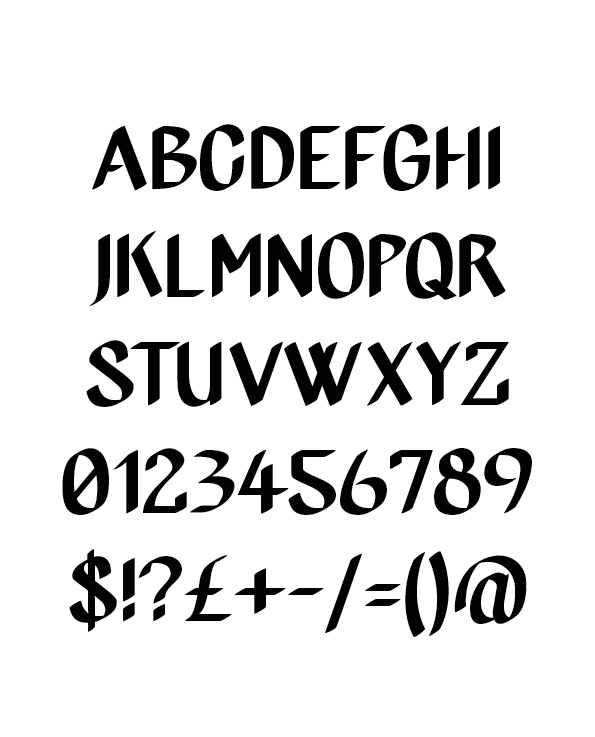
HomeScript FontsJeff Font Script Fonts Jeff Font FacebookXPinterestWhatsApp Jeff Font Poster 2 About Jeff Font JEFF is a bold brush font for display use. It consists of only uppercase letters, numbers and special characters. DOWNLOAD NOW People also explored Handline Font Winter Cloud Font Always Blissed Font Drainwood Font Romeliose Font The Symphony! Font Play Clipboard Font Chipper Font Mogie Font 254 0 TagsJeff Font Previous articleAttack of the Cucumbers FontNext articleRandom Luck Font LEAVE A REPLY Cancel reply Comment: Please enter your comment! Name:* Please enter your name here Email:* You have entered an incorrect email address! Please enter your email address here Website: Save my name, email, and website in this browser for the next time I comment. Personal Use Free Knox Personal Use Free Read more about this font Sathscha Personal Use Free Read more about this font Banana Valentine Personal Use Free Read more about this font Zero Panzer Personal Use Free Read more about this font BLOG Top 10 Handwritten Fonts That Elevate Your Designs Top 10 Handwritten Fonts That Will Elevate Your Designs Handwritten fonts bring a warm, personal touch to every creative project. Whether you're designing logos, invitations,... The 10 Best Handwriting Fonts to Add Personality to Your Designs To increase your work productivity, choose the most readable fonts. Using Fonts in Digital Marketing: Tips to Strengthen Your Brand Identity